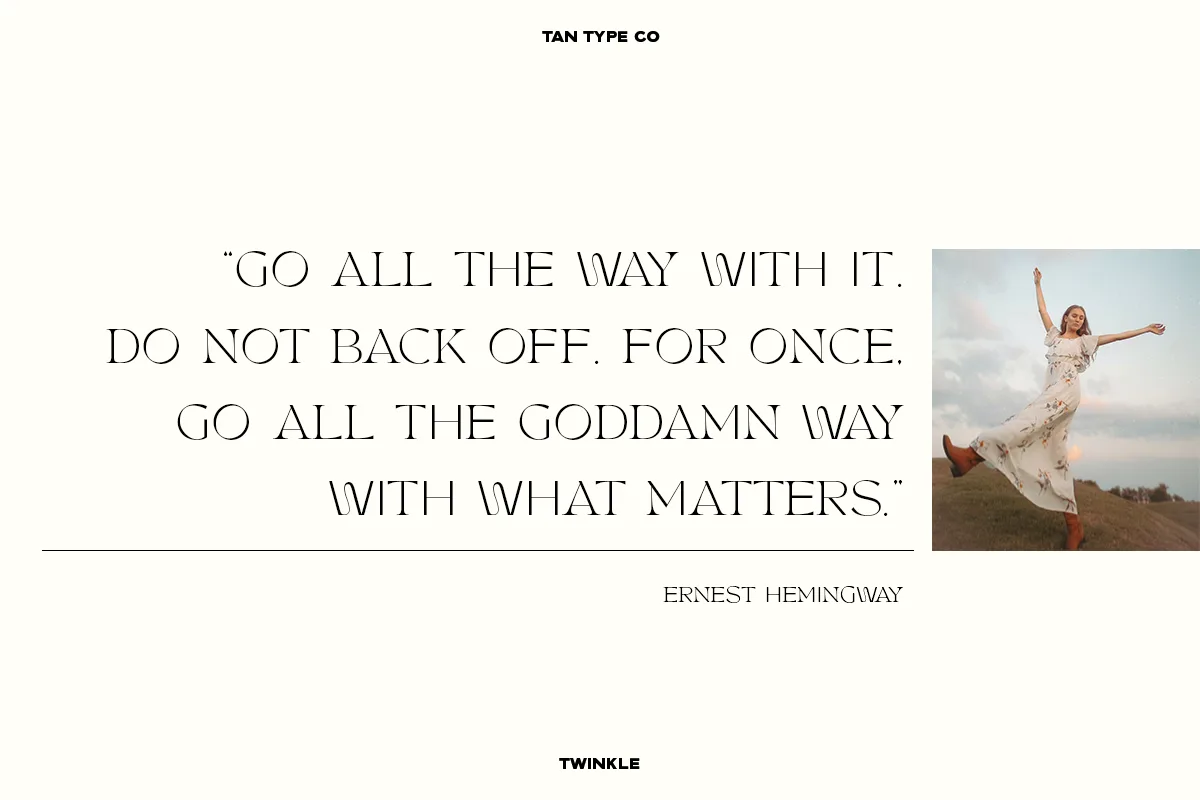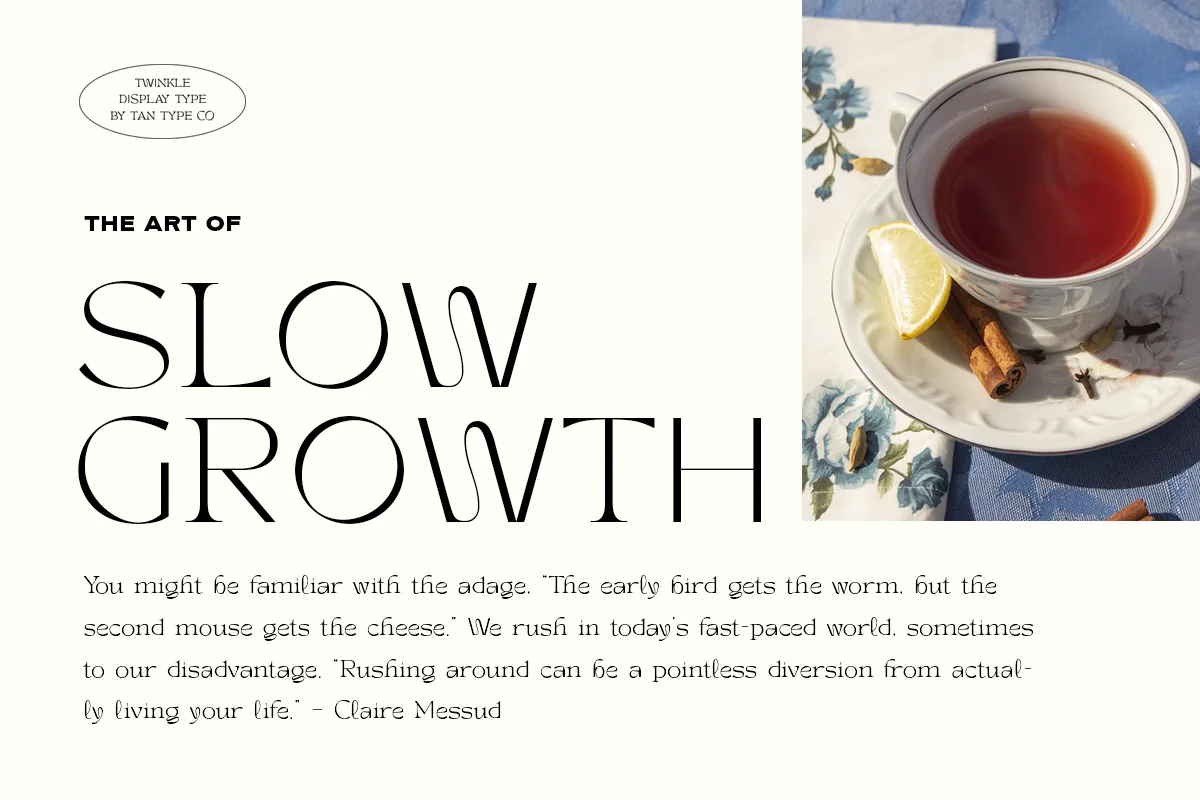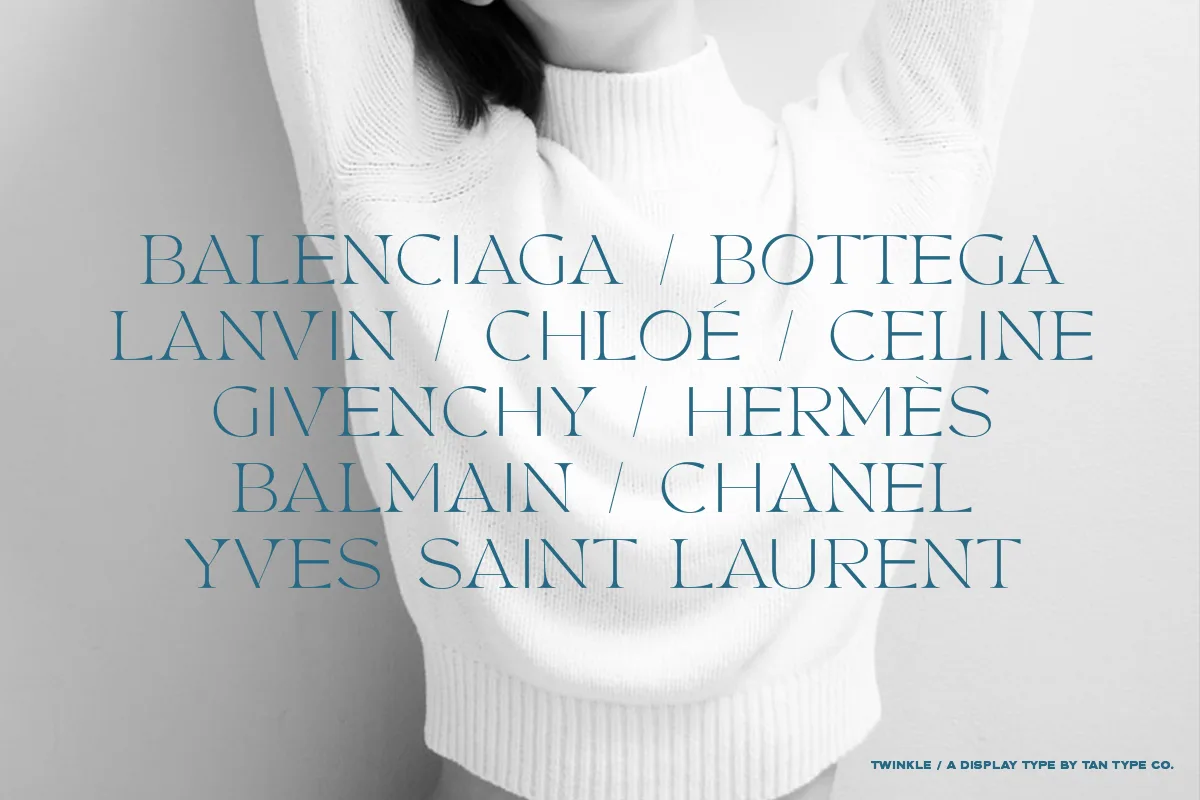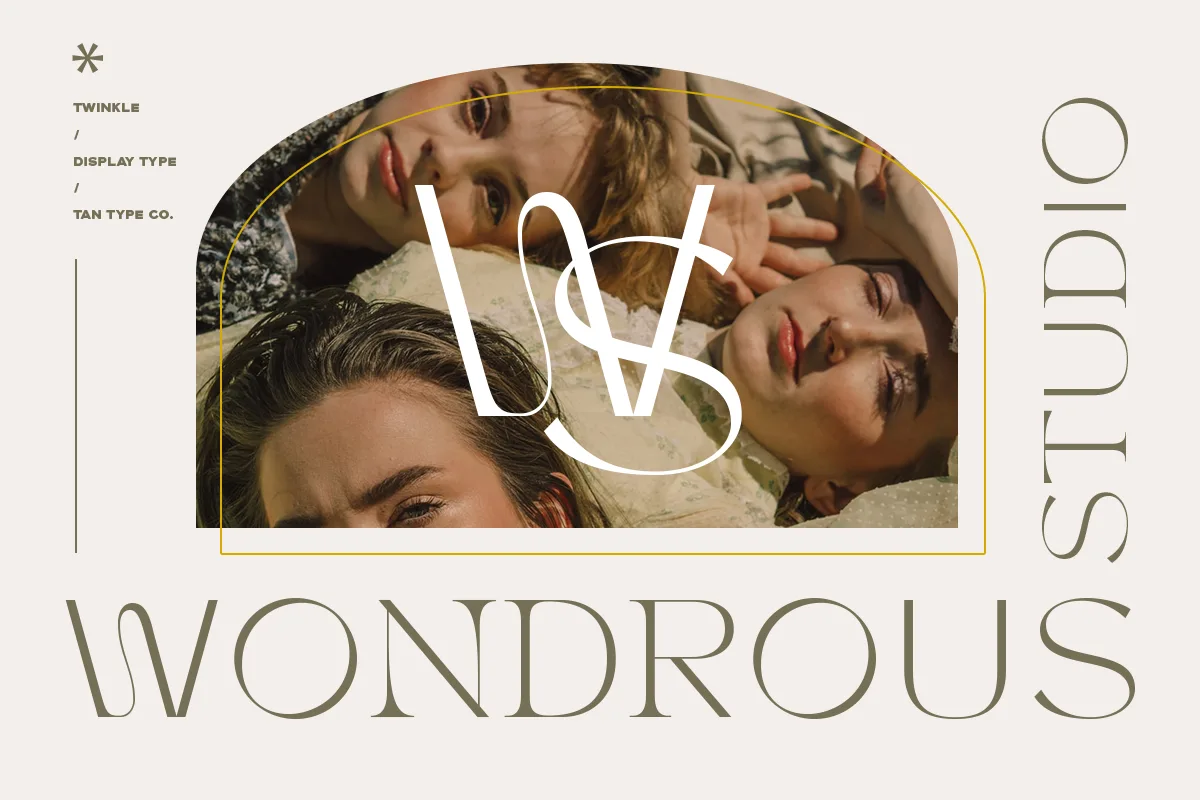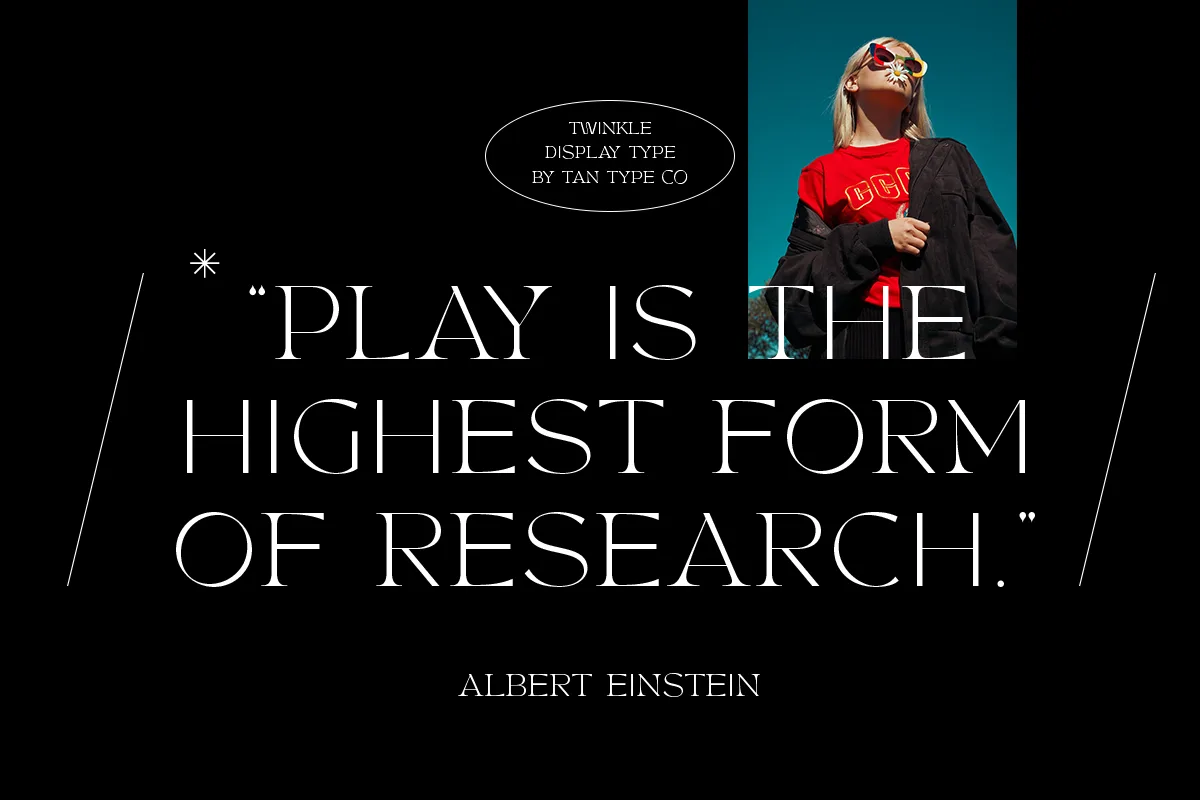
TAN TWINKLE is a hybrid between serif and sans serif, creating a modern, delicate and contemporary look. It fits perfectly with invitation card designs, company logos, movie titles, movie names, business cards, book titles, brand names and various other designs.